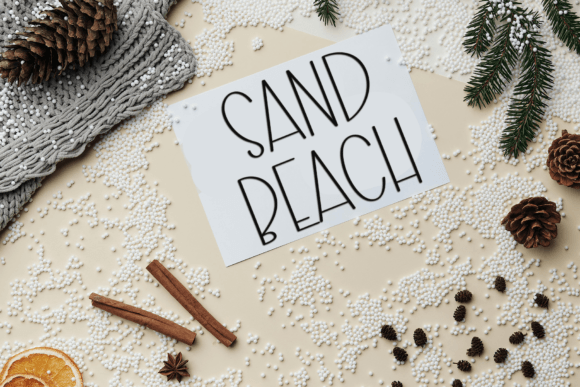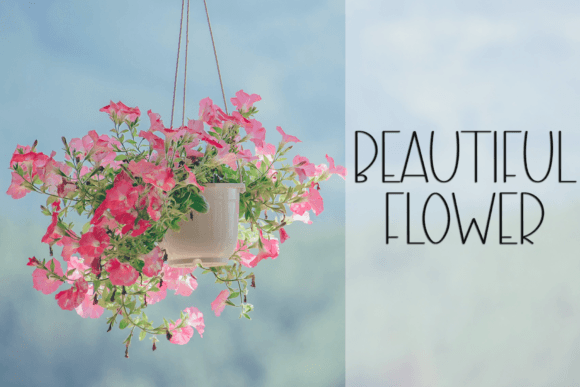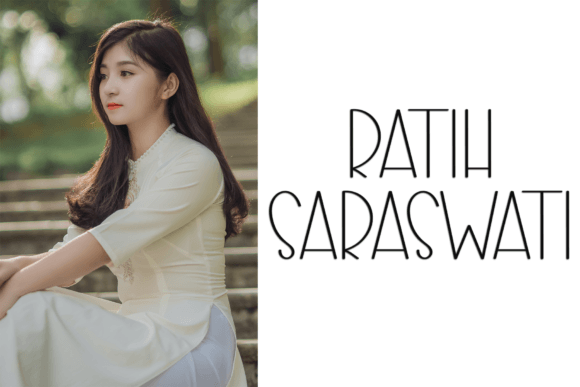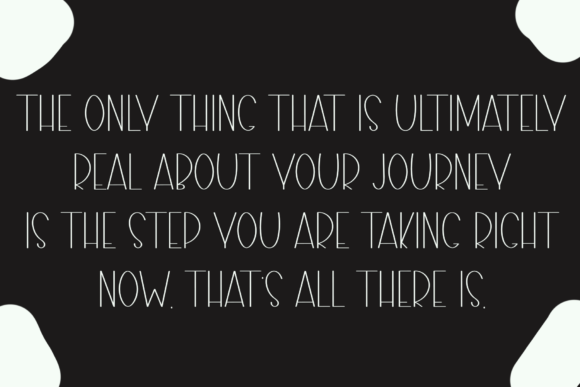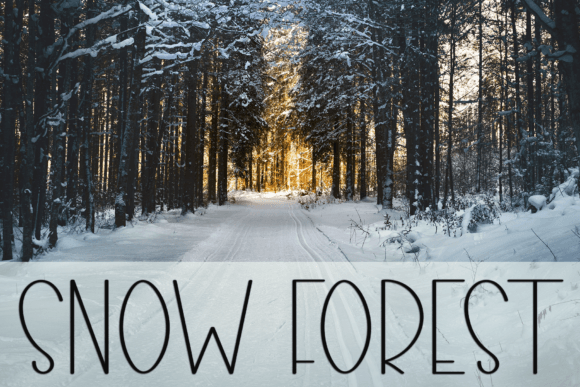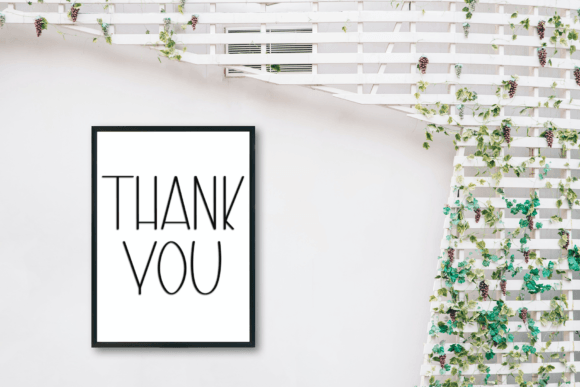
Introducing Black History Font: The Perfect Choice for Your Design Needs
Are you a designer or crafter looking for a font that exudes simplicity, elegance, and versatility? Look no further than the Black History Font. This sans-serif font is a game-changer, offering a clean and beautiful arrangement of letters that will elevate your designs to the next level. In this article, we’ll dive into the world of Black History Font, exploring its features, benefits, and uses.
What is Black History Font?
Black History Font is a simple and casual sans-serif font that boasts an undeniably clean feel. Its neat and beautiful arrangement of letters makes it perfect for both formal and non-formal designs. Whether you’re working on a logo, brochure, or social media graphic, this font is sure to impress. Its clean lines and minimalist aesthetic ensure that your message is conveyed clearly and effectively.
Key Features of Black History Font
- Clean and Simple Design: The Black History Font features a clean and simple design that makes it easy to read and understand.
- Sans-Serif Style: The font’s sans-serif style gives it a modern and sleek look that’s perfect for contemporary designs.
- Versatile: The font is versatile and can be used in a variety of designs, from formal to non-formal.
- Beautiful Arrangement of Letters: The font’s beautiful arrangement of letters makes it stand out from other fonts.
Benefits of Using Black History Font
So, why should you choose Black History Font for your design needs? Here are just a few benefits:
- Easily Readable: The font’s clean design and simple style make it easily readable, even at small sizes.
- Professional Look: The font’s sleek and modern aesthetic gives your designs a professional look that’s sure to impress.
- Time-Saving: With its versatility and ease of use, Black History Font can save you time and effort in your design projects.
- Unique Style: The font’s unique style sets it apart from other fonts, making your designs stand out from the crowd.
Uses of Black History Font
So, what can you use Black History Font for? The possibilities are endless:
- Logo Design: The font’s clean and simple design makes it perfect for logo design.
- Brochures and Flyers: The font’s professional look and feel make it ideal for brochures and flyers.
- Social Media Graphics: The font’s modern aesthetic and readability make it perfect for social media graphics.
- Business Cards: The font’s simple and elegant design makes it suitable for business cards.
Tips for Using Black History Font
Here are a few tips for getting the most out of Black History Font:
- Pair with Other Fonts: Experiment with pairing Black History Font with other fonts to create a unique and visually appealing design.
- Use Different Sizes: Use different sizes of the font to create visual hierarchy and emphasize important information.
- Experiment with Colors: Try out different colors and color combinations to add depth and interest to your design.
In conclusion, Black History Font is a versatile and elegant sans-serif font that’s perfect for designers and crafters. Its clean and simple design, modern aesthetic, and readability make it suitable for a wide range of designs. Whether you’re working on a logo, brochure, or social media graphic, this font is sure to impress. So why wait? Give Black History Font a try today and take your designs to the next level!